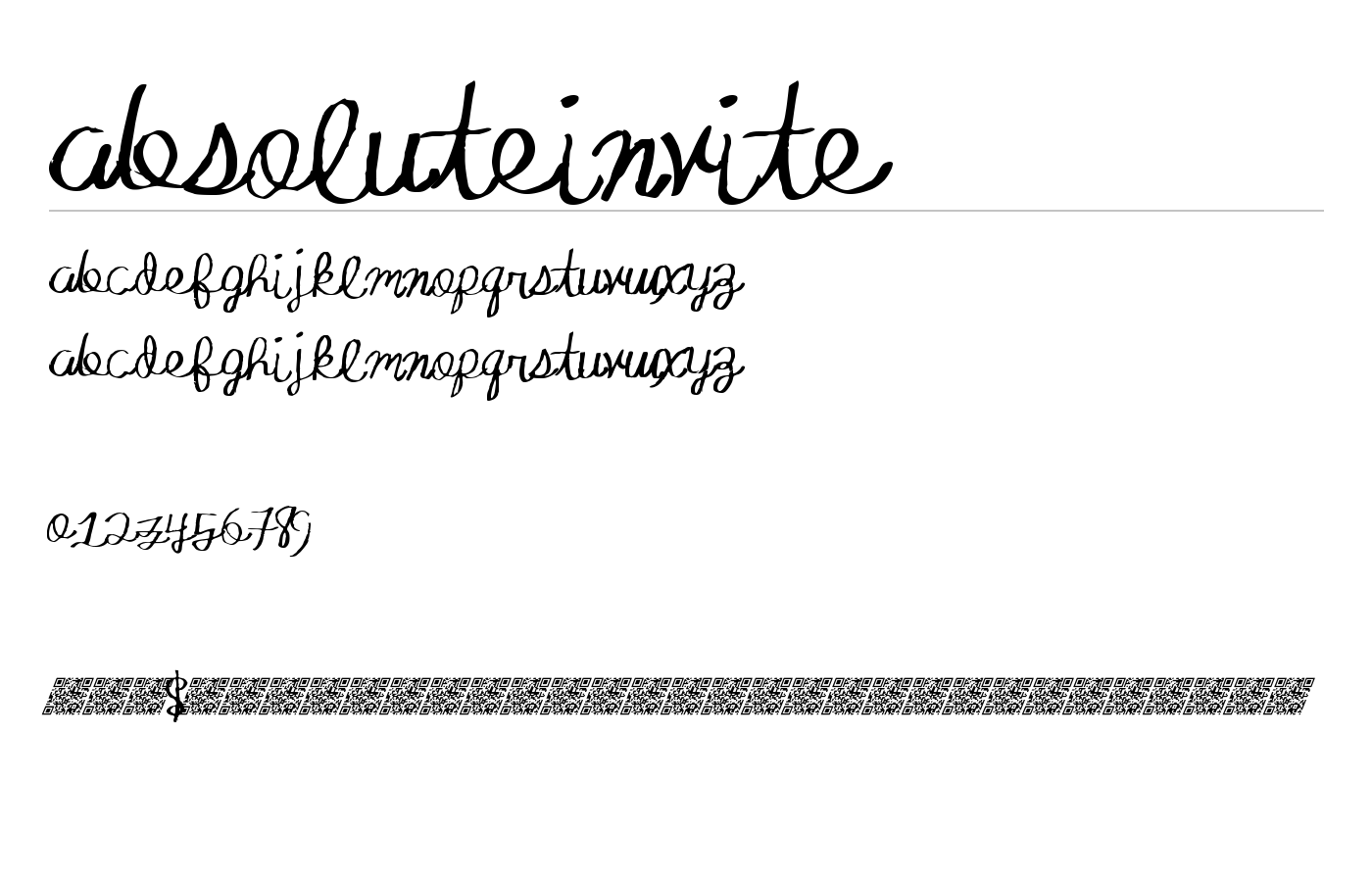
AbsoluteInvite is a casual, handwritten script font with a lively and flowing style, featuring irregular strokes that give it a personal, inviting feel. Its slender, slightly slanted letterforms and delicate curves make it perfect for informal invitations, greeting cards, and creative branding where a warm, approachable touch is desired. This font works well for designs that aim to convey friendliness and authenticity with a hand-crafted appearance.
AbsoluteInvite Font
About AbsoluteInvite Font